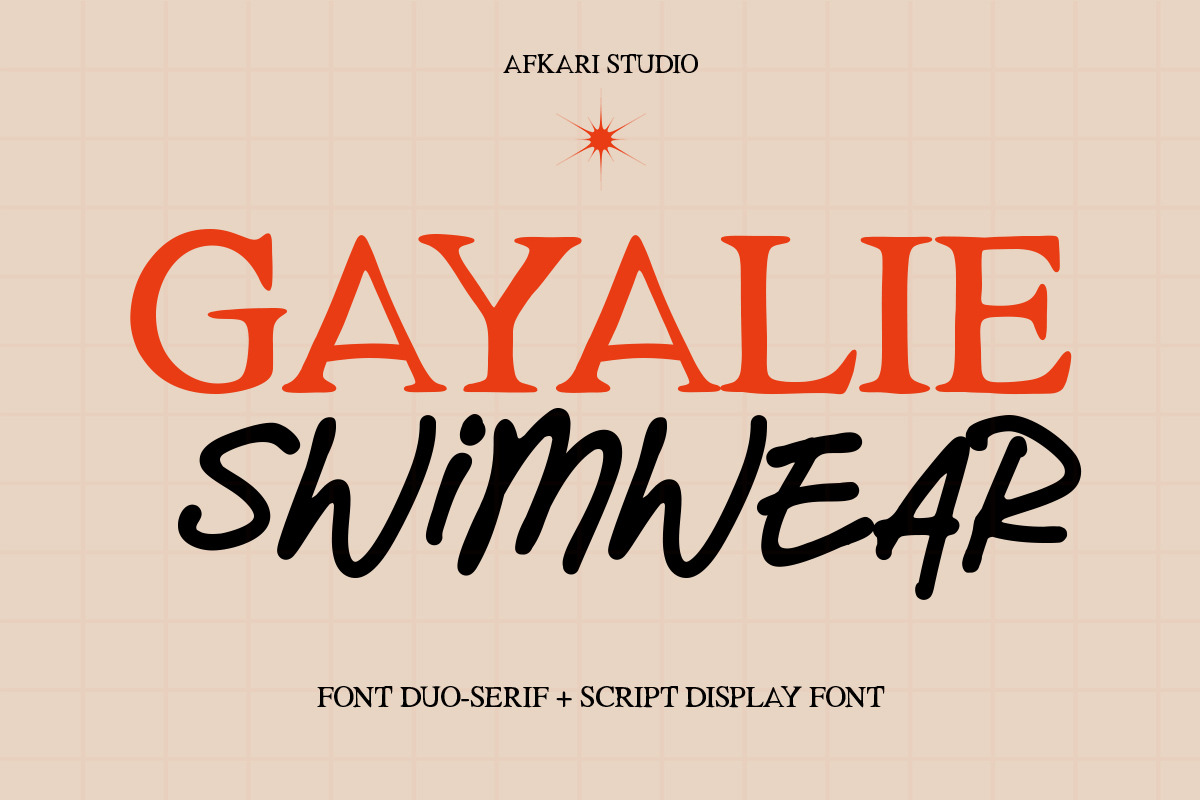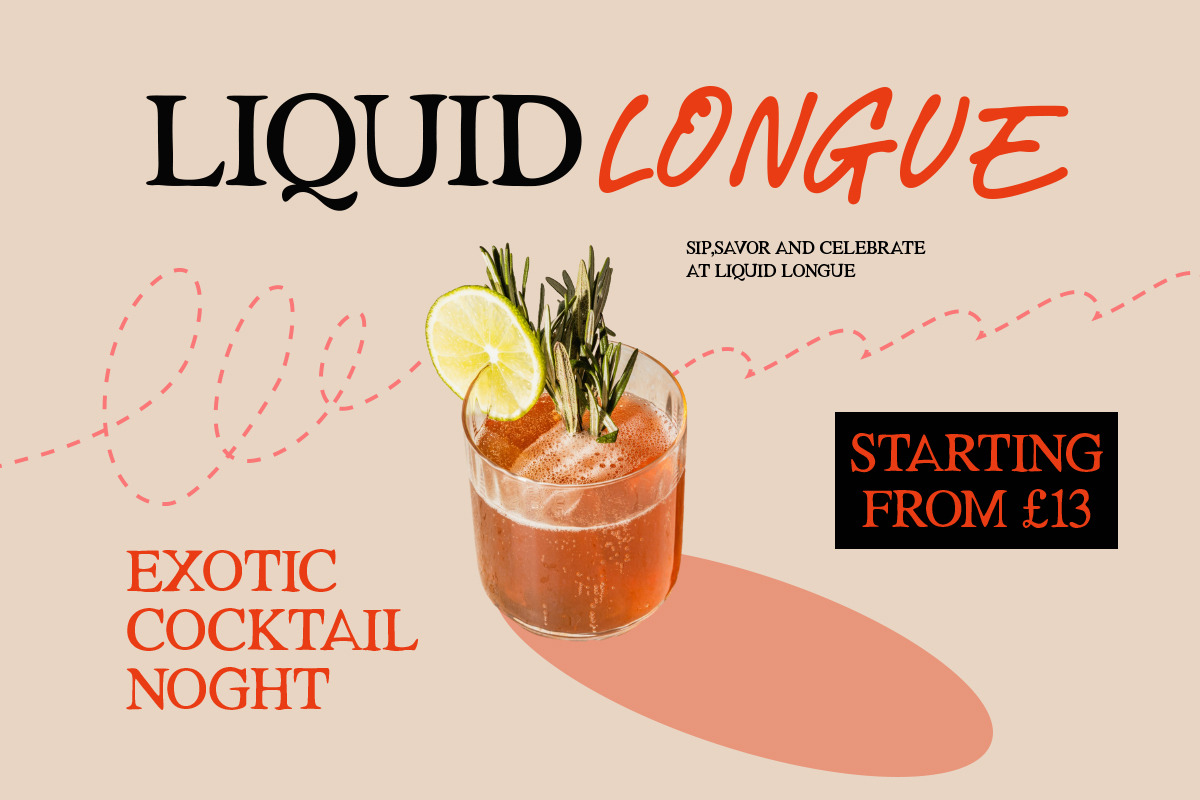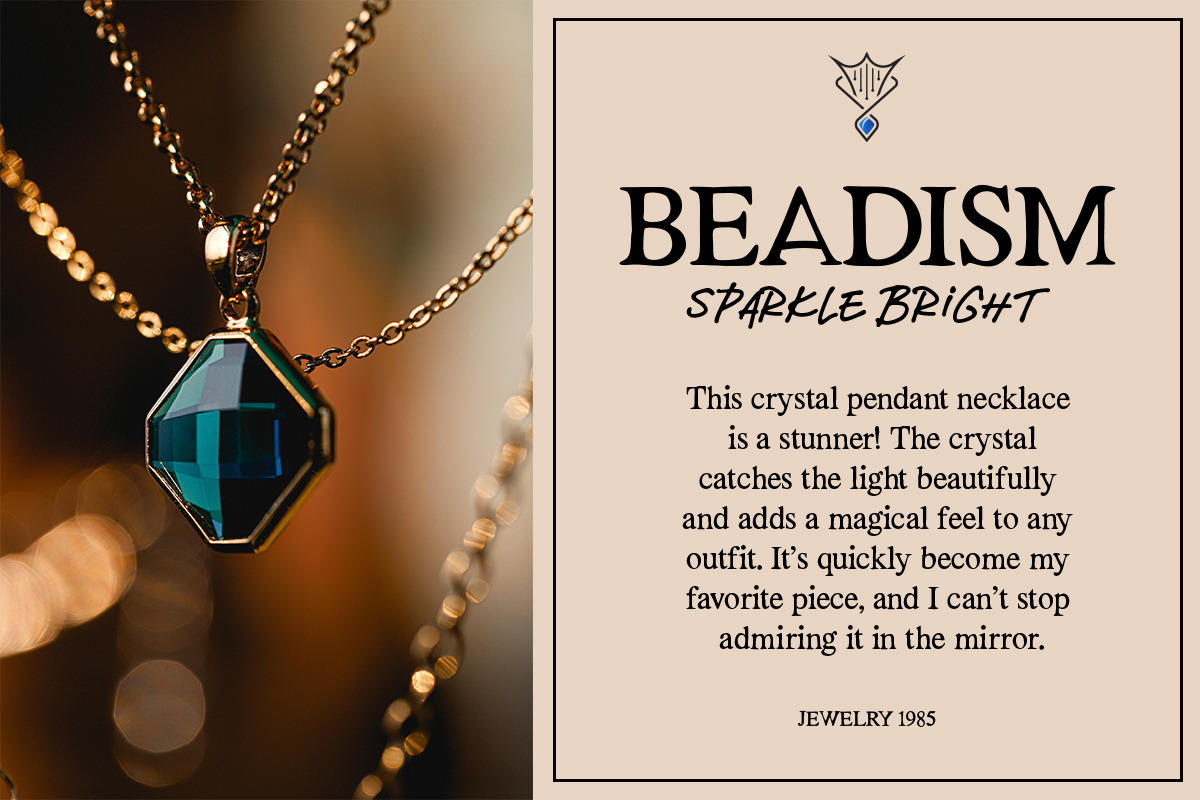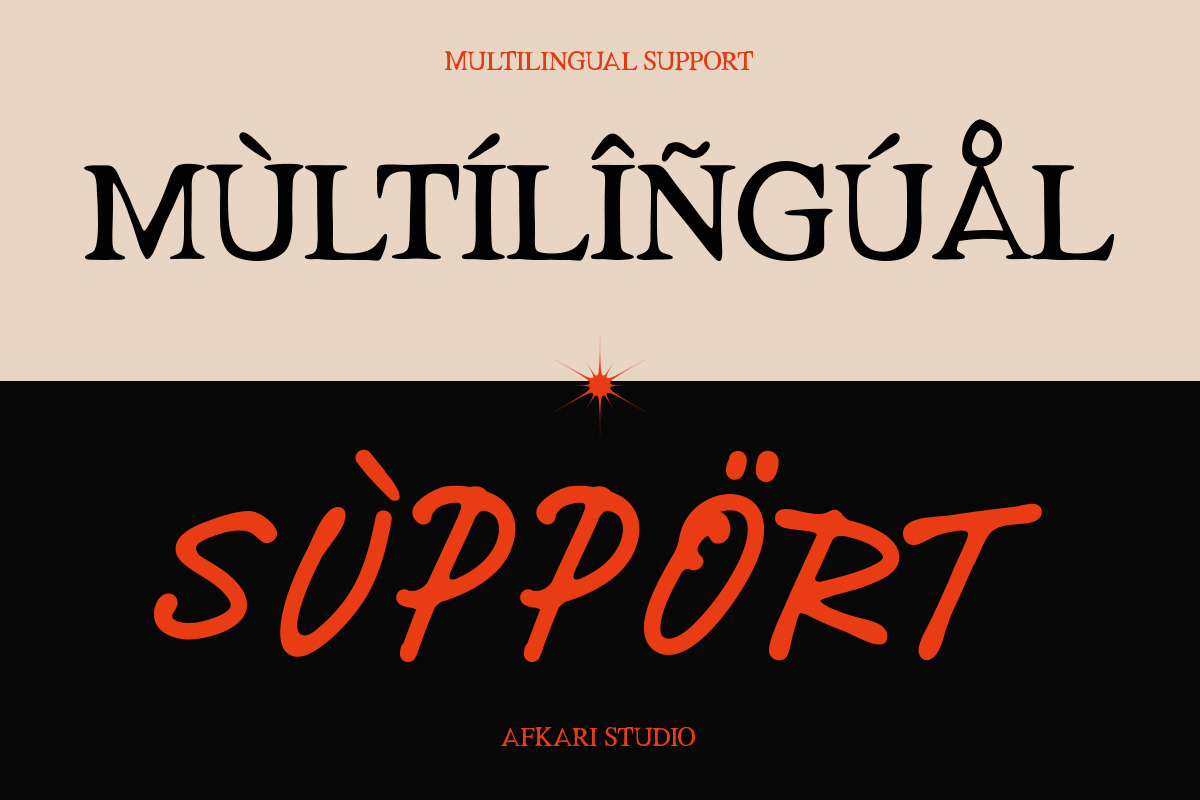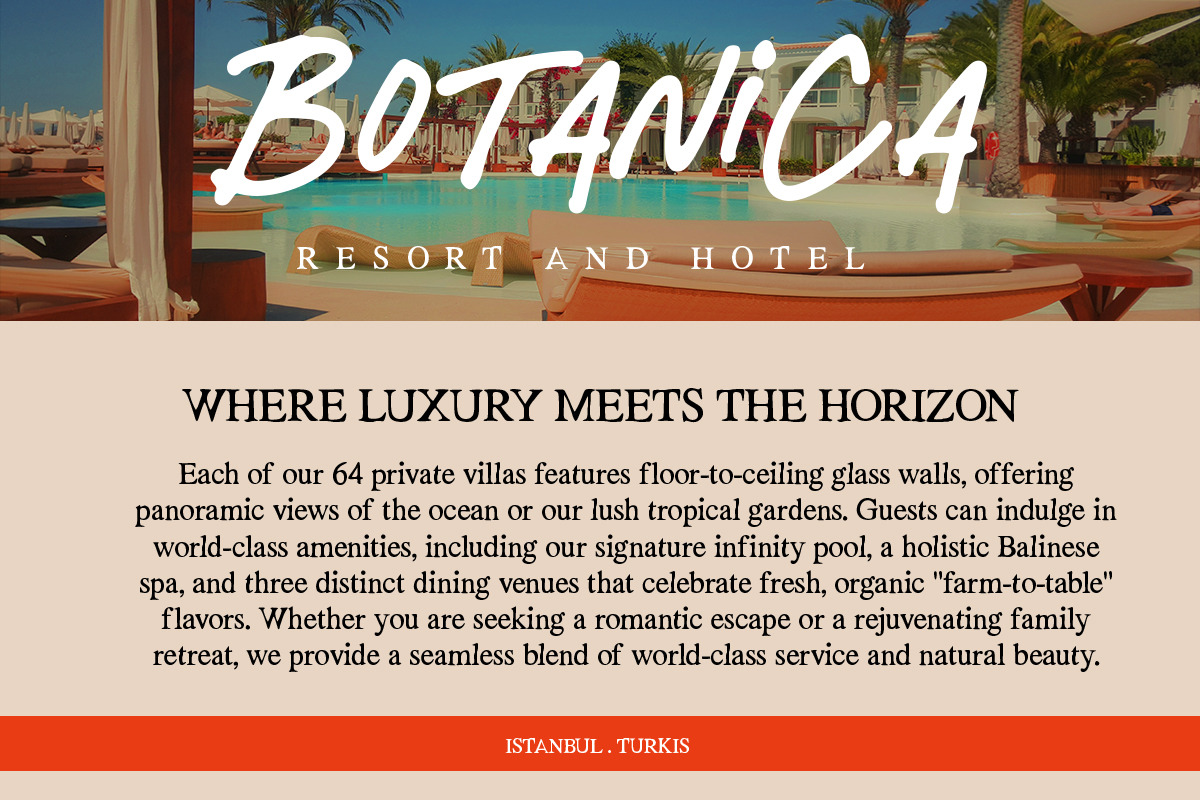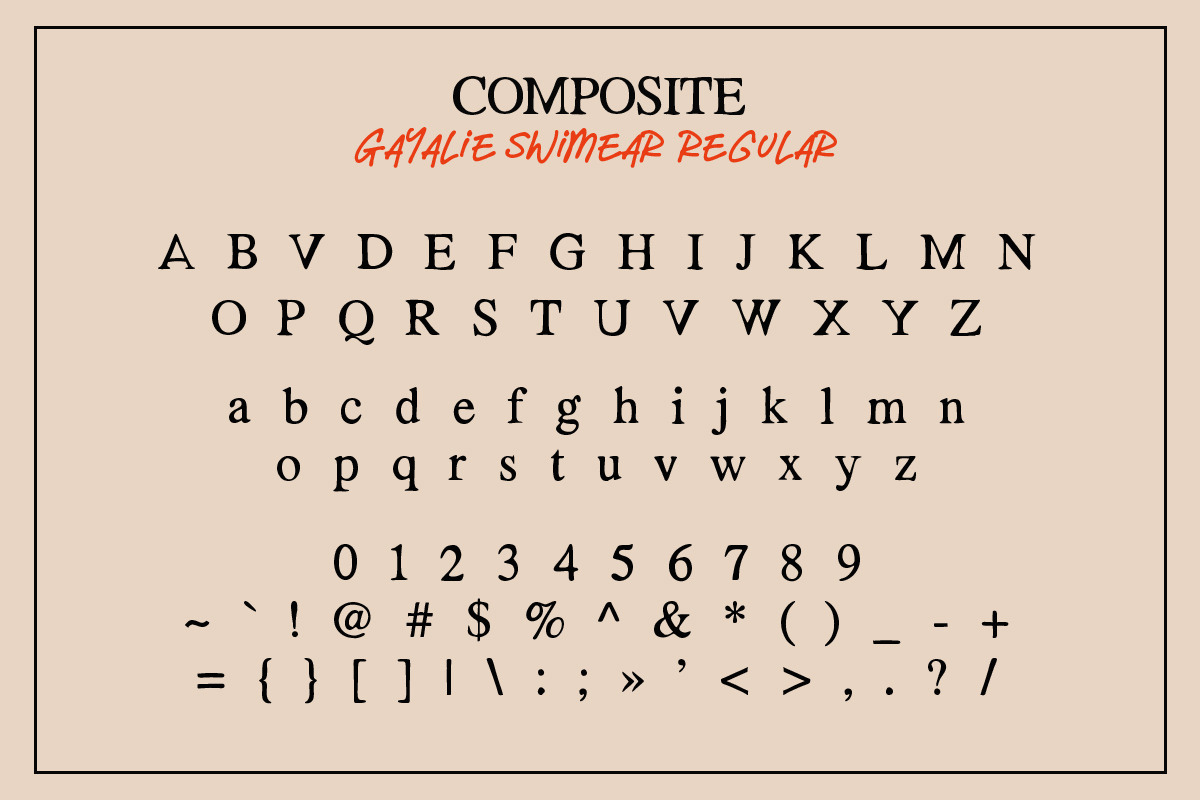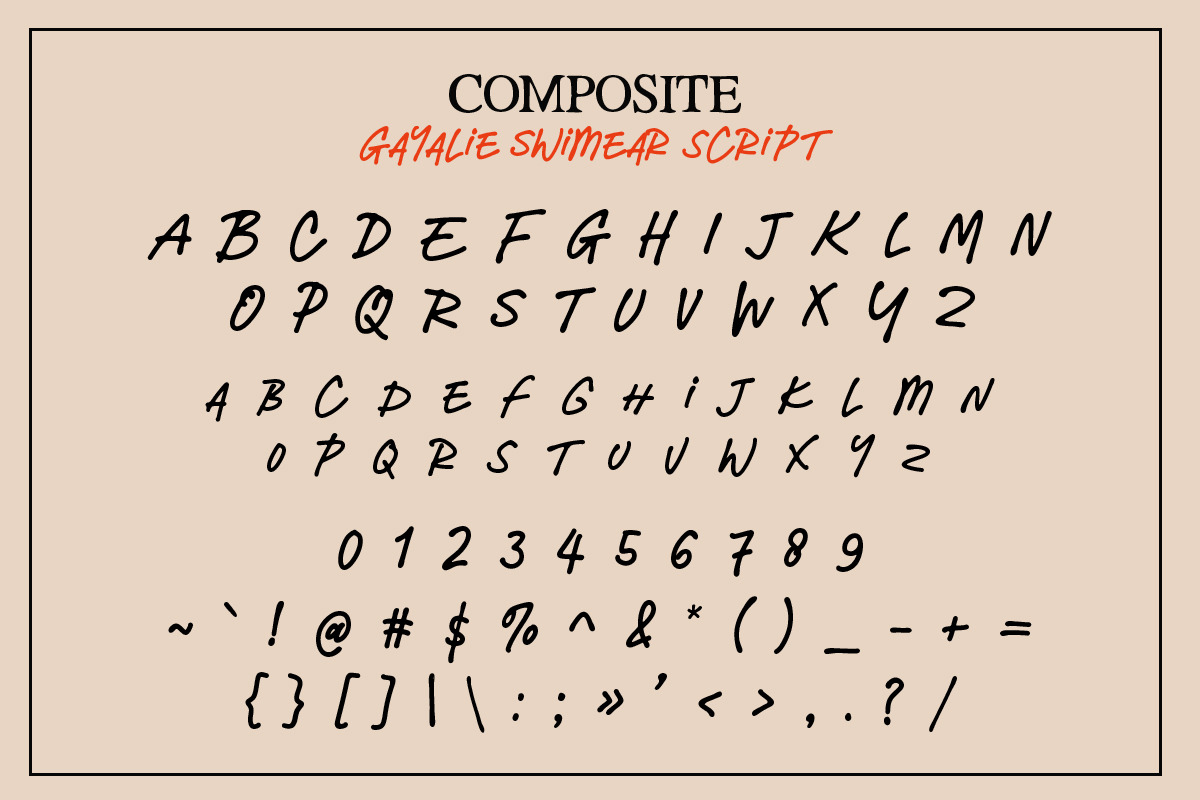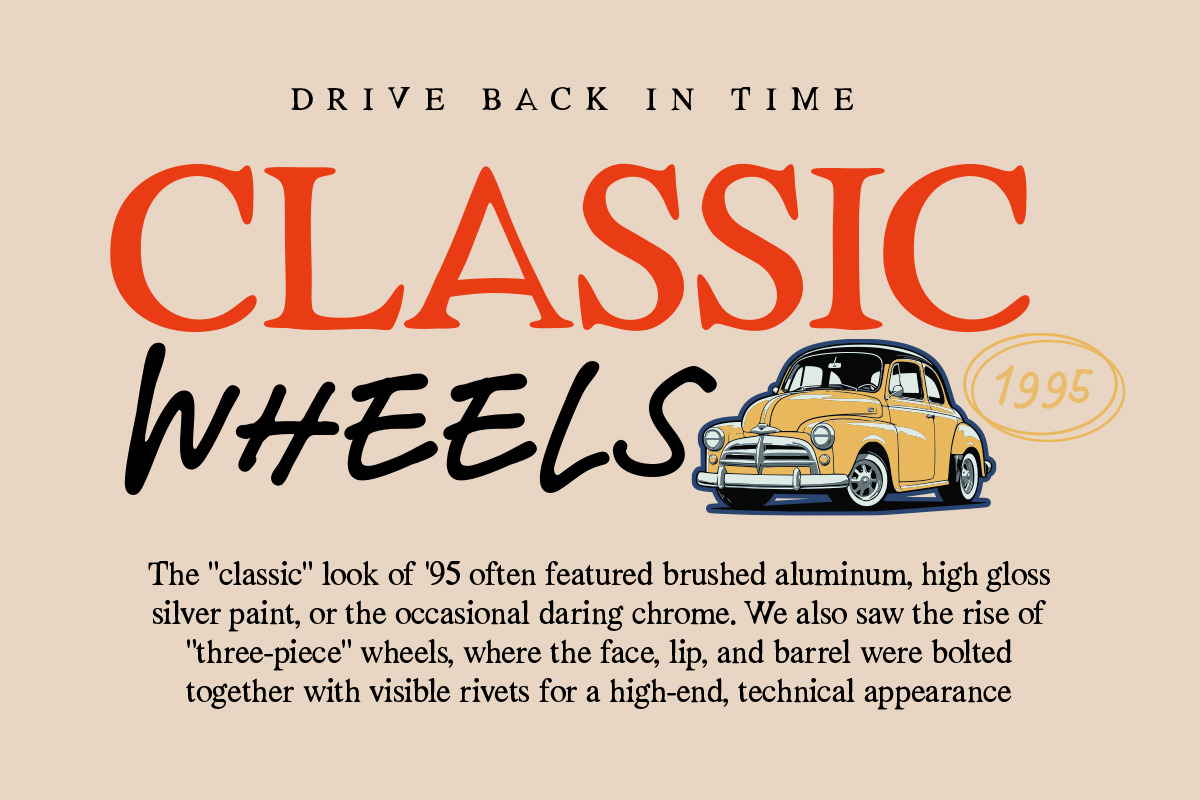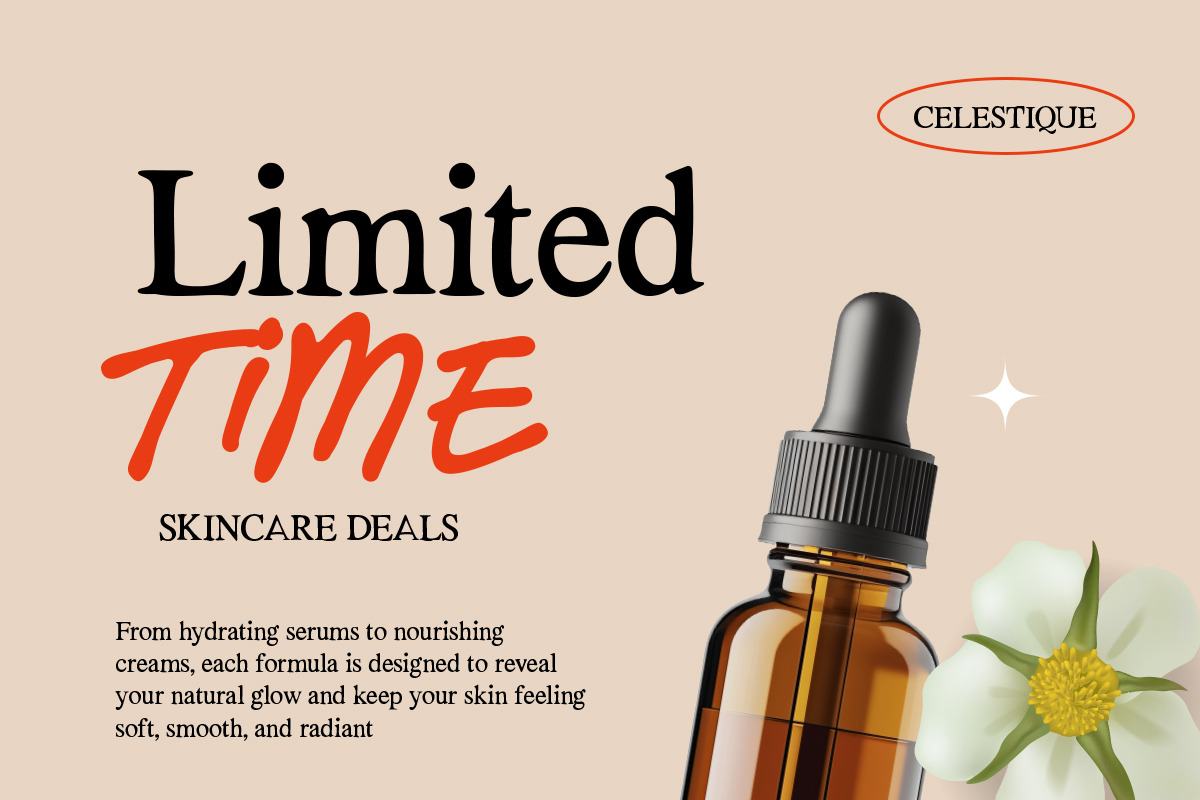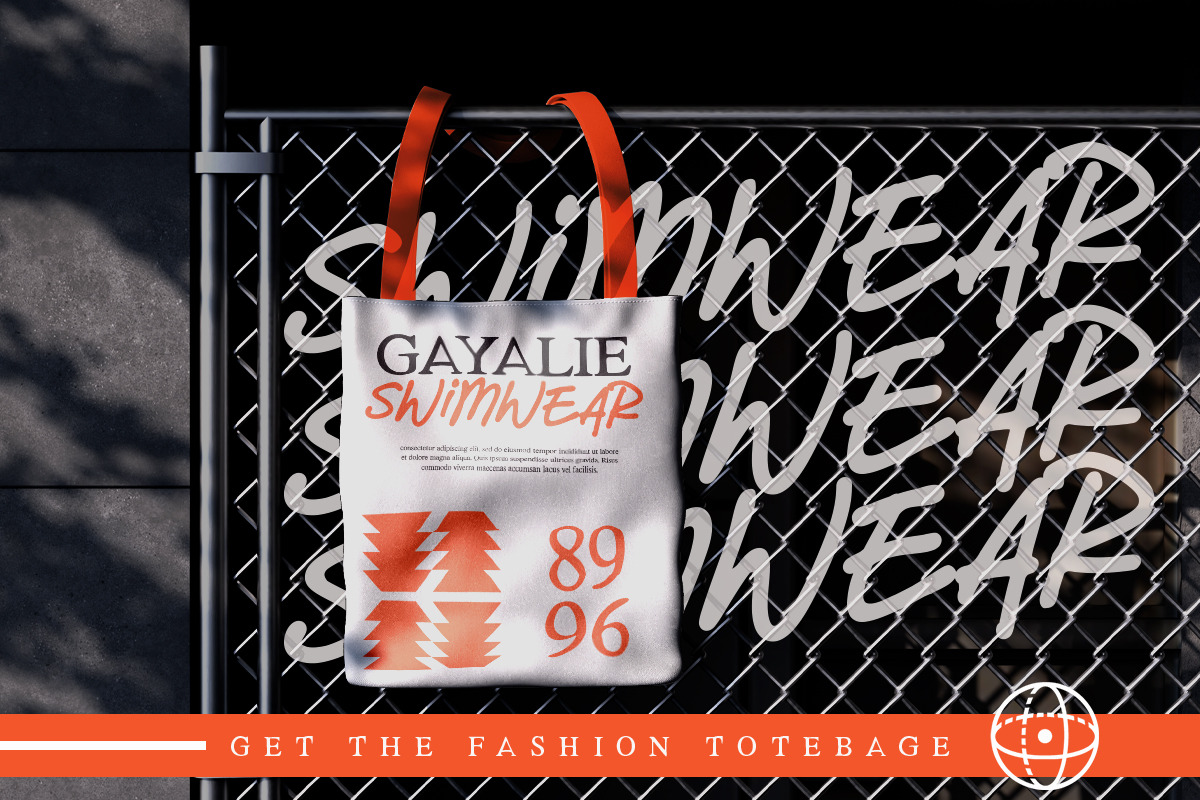
Gayalie Swimwear - Font Duo
Gayalie Swimwear is a stylish serif and script font duo designed to deliver a perfect balance between elegance and femininity. Inspired by modern fashion branding and luxury swimwear aesthetics, this font pairing combines a clean, refined serif with a flowing handwritten script—creating beautiful contrast and visual harmony in every design.
This font duo is ideal for fashion logos, swimwear brands, beauty products, lifestyle branding, packaging, social media content, editorials, and wedding-inspired designs. The serif font provides structure and sophistication, while the script adds softness, movement, and a personal touch.
Gayalie Swimwear helps designers create luxurious, feminine, and modern branding with ease—no extra font pairing required.
Highlighted Features:
- Uppercase, Lowercase, Number, and Punctuation
- Special alternates and ligatures
- Mültîlíñgúãl Sùppört for; ä ö ü Ä Ö Ü ß ¿ ¡
Create timeless and stylish designs with Gayalie Swimwear – Serif & Script Font Duo Typeface, a refined pairing made for modern luxury branding.